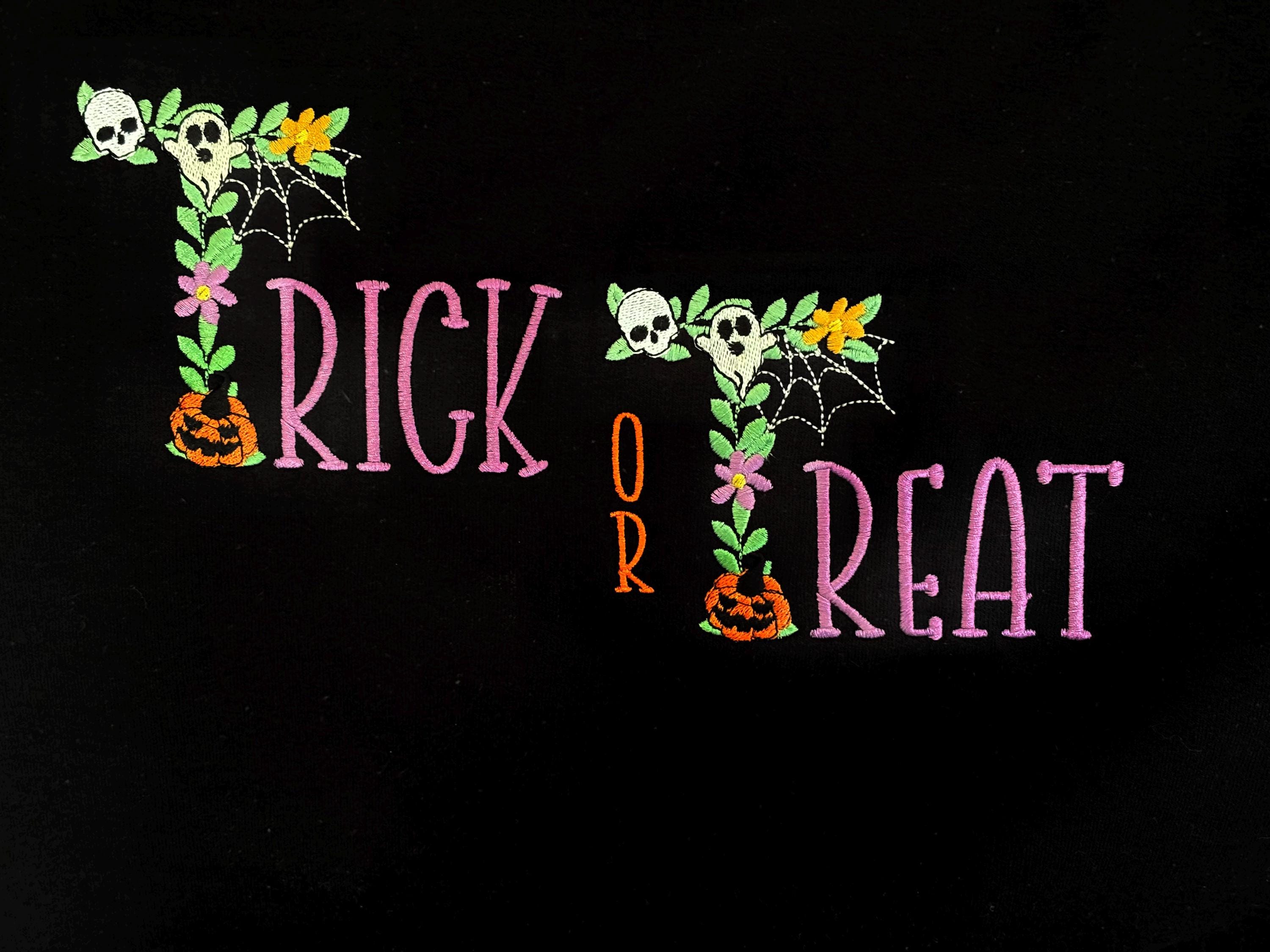
Spooky Skull Font Halloween Floral alphabet spider web ghost jack-o-lantern scary monogram machine embroidery designs sizes 3.4 to 5.7in BX
Whole alphabet A-Z uppercase letters.
Cute letters! Love how it sketches out.
It took me a little while to figure out what to do with this font. I combined it with another font I had to create my design. I love how it came out!